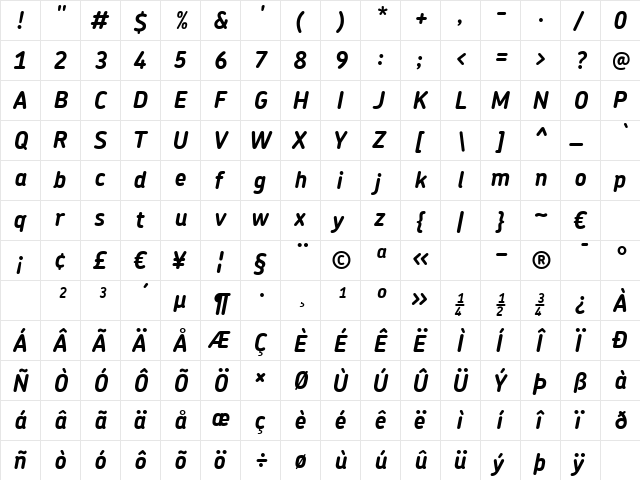
ChevinBoldItalic Regular
Design Context for ChevinBoldItalic Typeface
ChevinBoldItalic offers clean, dependable letterforms without strong stylistic allegiance, making it a practical choice for designers who need flexibility. The slanted form adds forward momentum and visual energy. The heavy weight commands attention and anchors typographic hierarchies.
Pro Tip: Try ChevinBoldItalic for annotation and caption copy alongside an upright companion — the contrast in angle creates a dynamic but ordered typographic system.